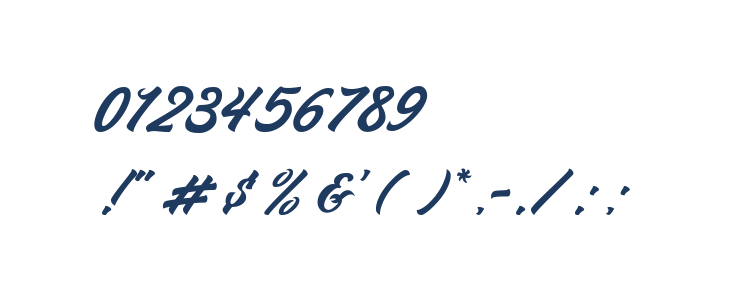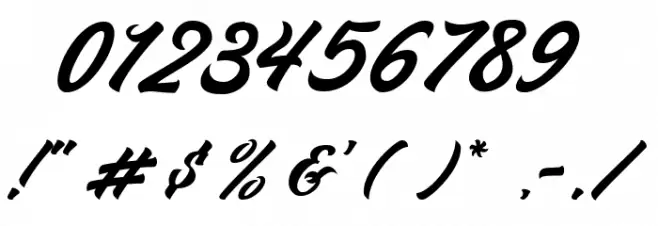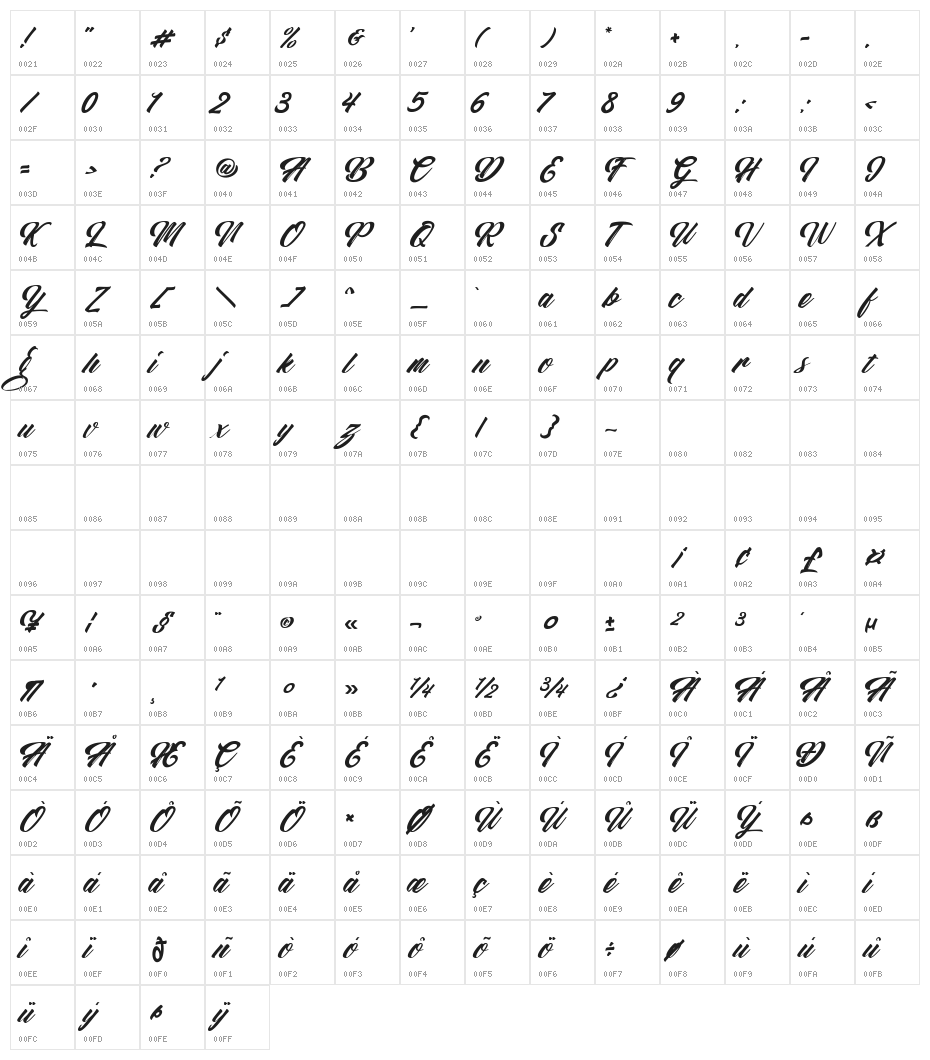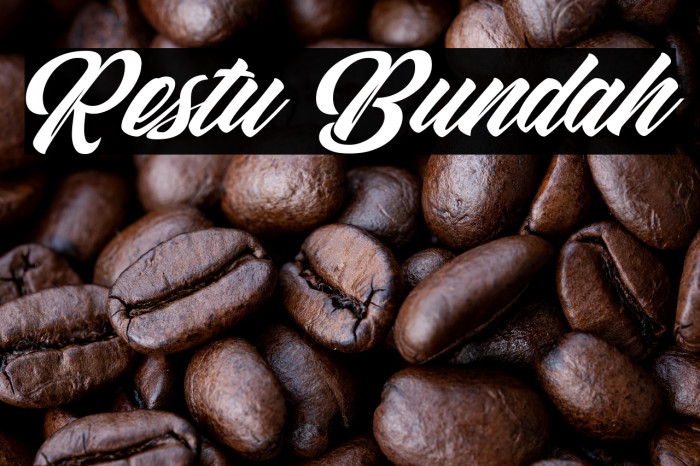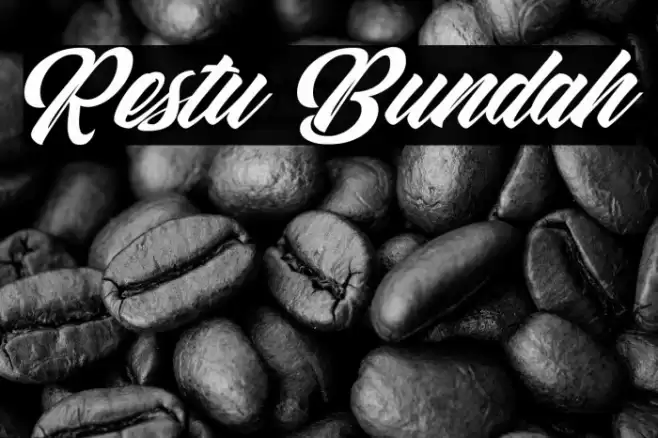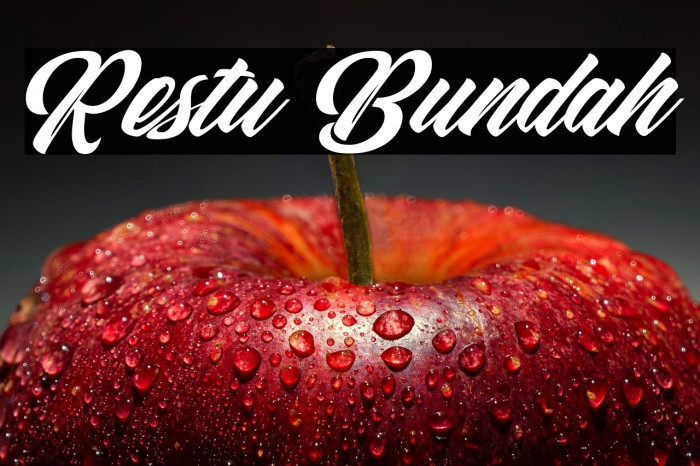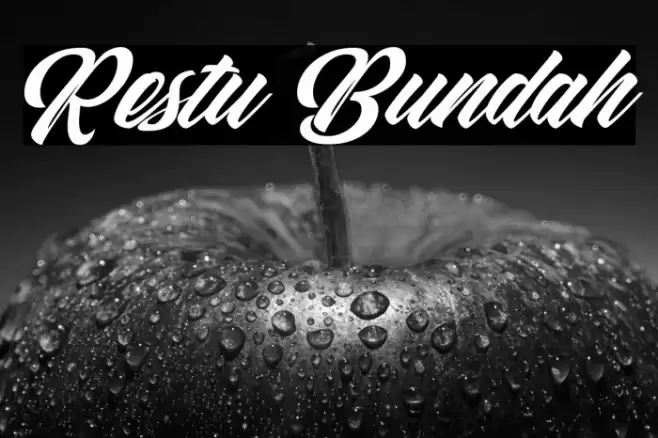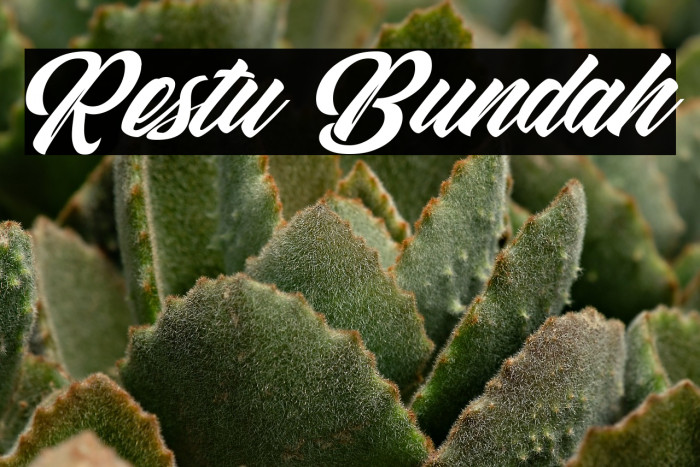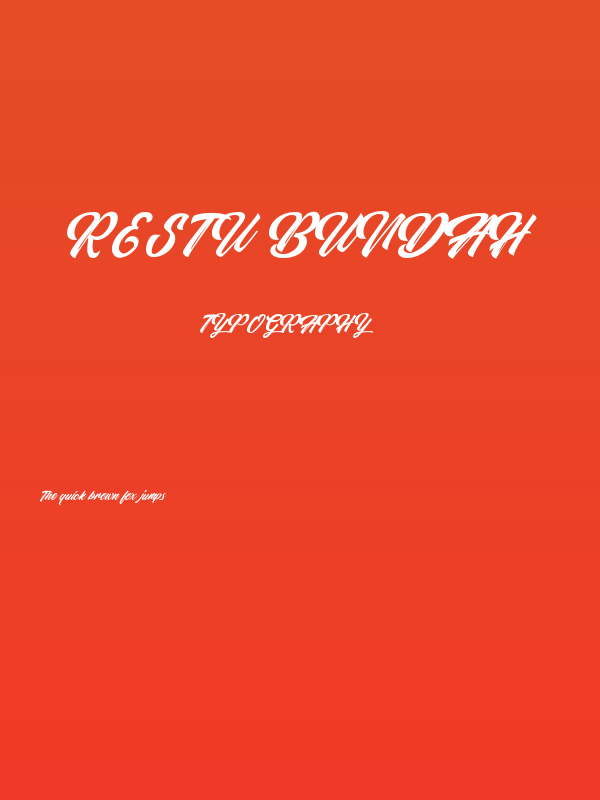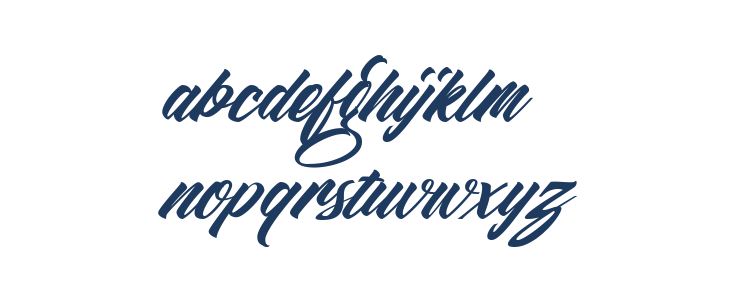
Restu Bundah Font
Restu Bundah Description
This font features a bold, cursive style with a strong emphasis on fluidity and elegance. The characters are interconnected, creating a seamless flow that mimics natural handwriting. The uppercase letters are slightly larger and more ornate, while the lowercase letters maintain a consistent, flowing script. Numbers and special characters are designed to match the overall aesthetic, with smooth curves and a dynamic presence. The font's boldness ensures high visibility and impact, making it suitable for various creative applications.